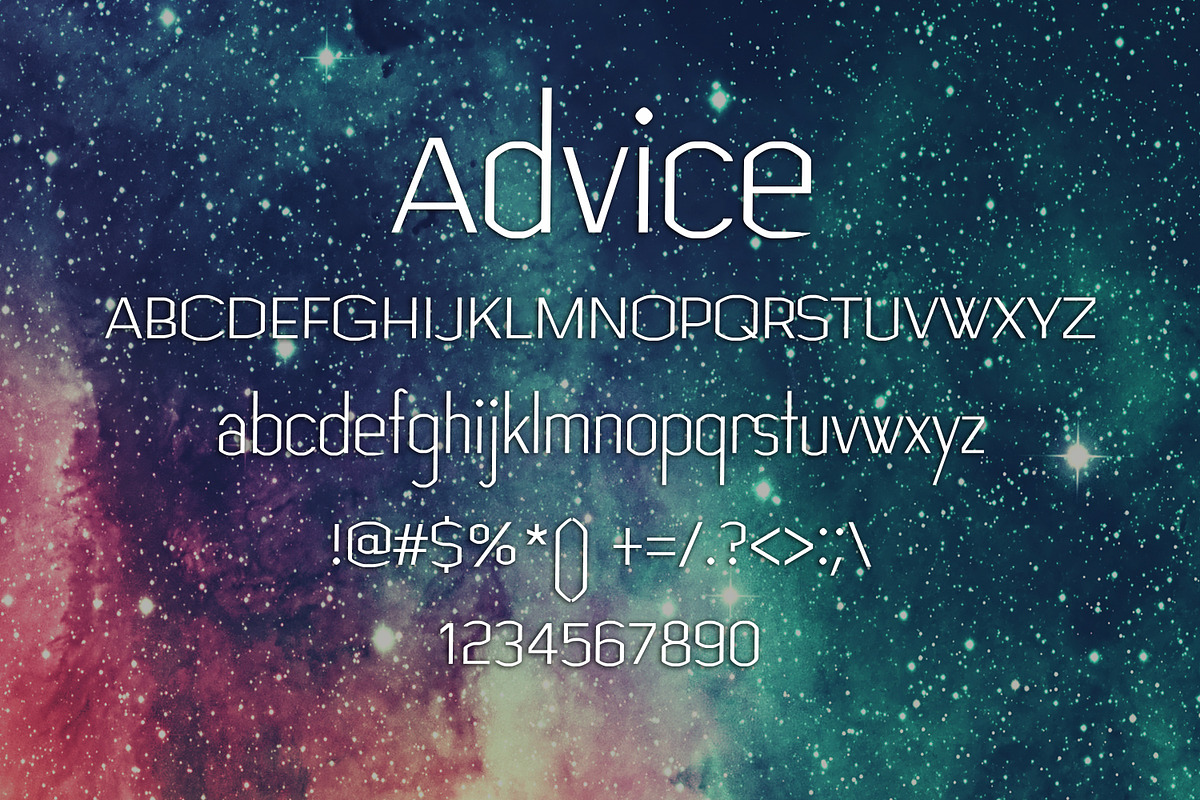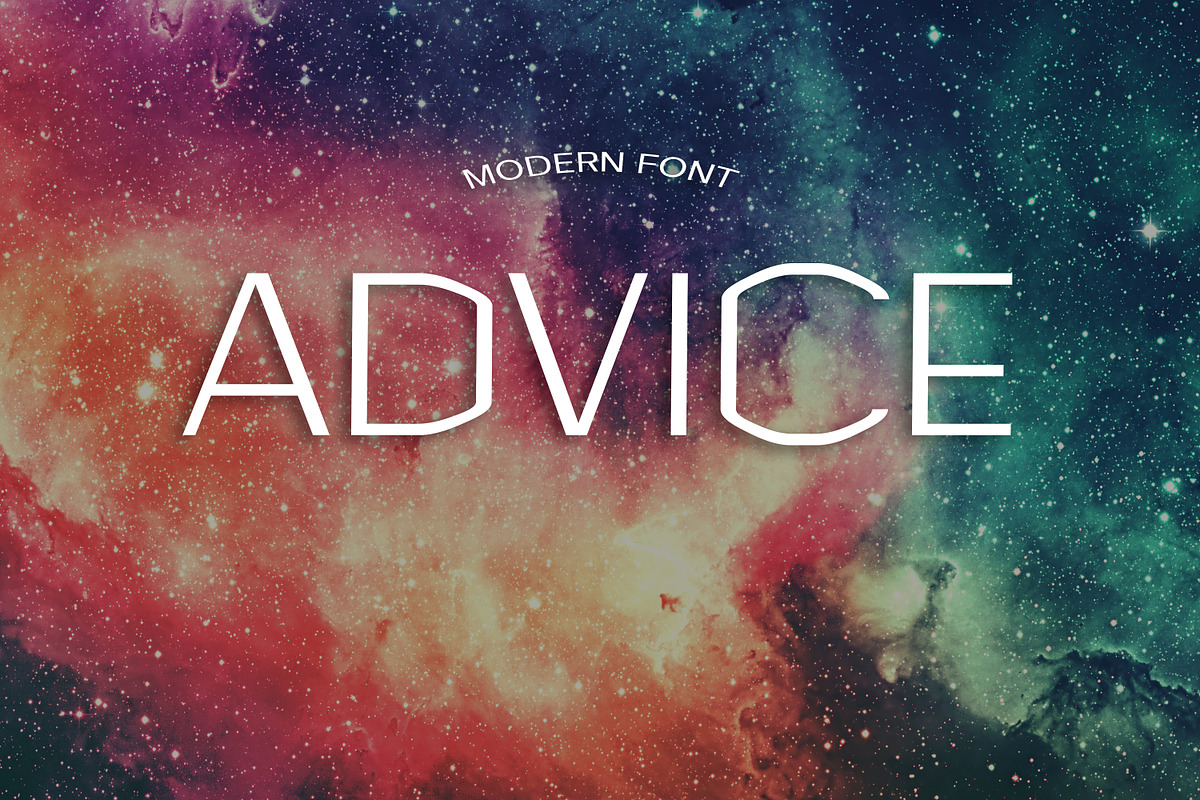
ADVICE Font
- Advice regular
Why ADVICE Font is worth a look
ADVICE Font by DmDesignsStoreArt fits naturally into Branding, posters, packaging, typography.